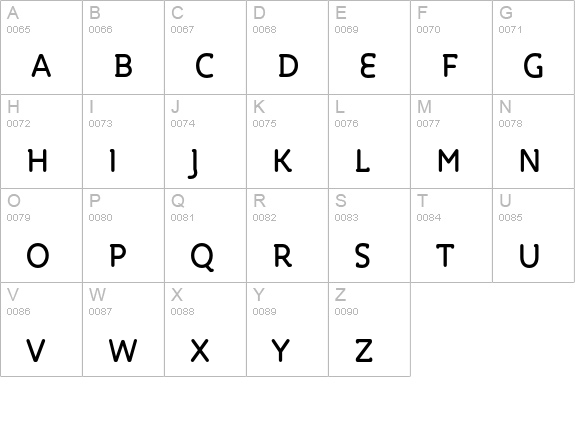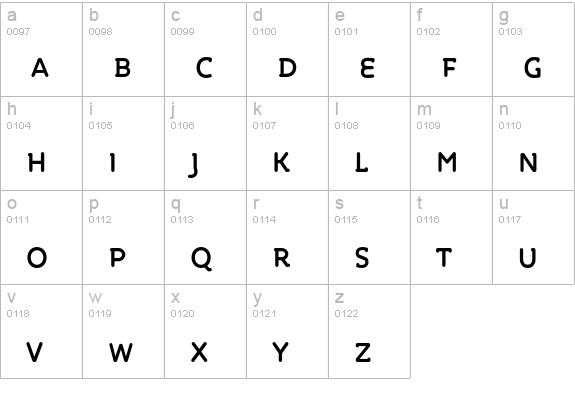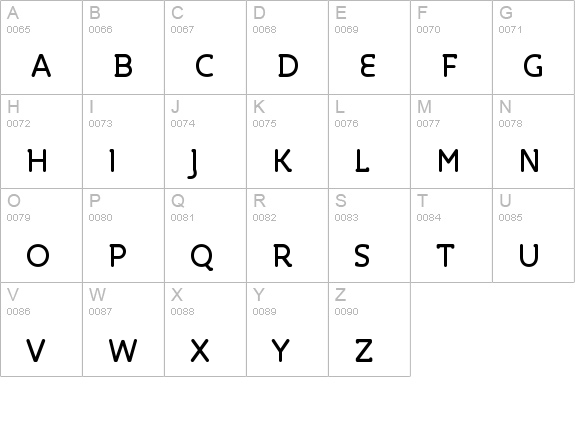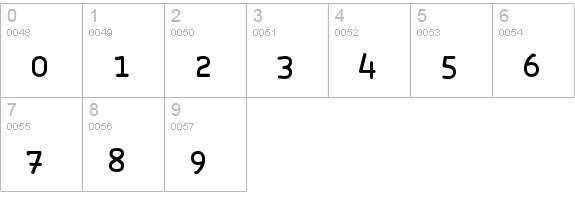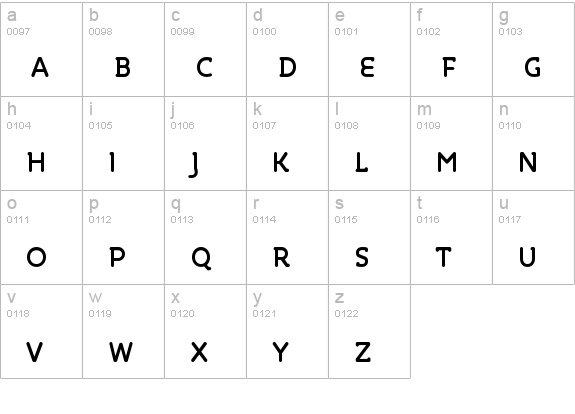
Roice-MediumSC font is a modern and elegant typeface that strikes the perfect balance between sophistication and readability. With its sleek lines and stylish curves, this font is ideal for a wide range of design projects, from branding to editorial layouts. Its medium weight conveys a sense of confidence and professionalism, making it a versatile choice for both print and digital applications. What's even better is that Roice-MediumSC is available for free download at FontsMarket.com! This means you can easily access this high-quality font and incorporate it into your projects without any cost. Don't miss out on the opportunity to enhance your designs with this beautiful typeface that will elevate your work to the next level. Download Roice-MediumSC today and bring a touch of sophistication to your creations.